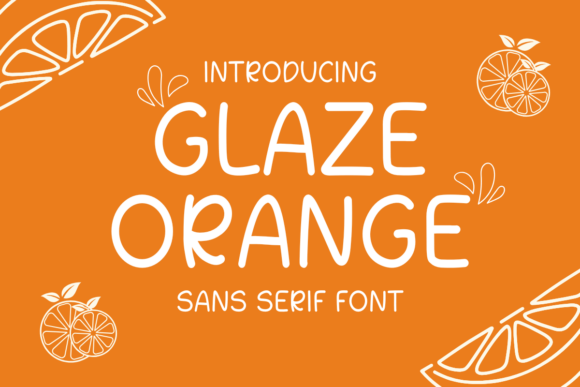
Unlock the Vibrant World of Glaze Orange Font
Have you ever been rummaging through your craft supplies, only to stumble upon a bright orange marker that instantly sparks a wave of creativity? For designers, this feeling is not limited to physical supplies, but can also be triggered by the perfect font. Introducing the Glaze Orange Font, a fun sans serif font designed to bring a pop of color and energy to your projects.
Glaze Orange Font is more than just a font – it’s a versatile tool for creating unique and eye-catching designs. Whether you’re crafting memos, journals, or invitations, this font is sure to add a touch of personality to your work. As a valuable resource for designers, Glaze Orange Font offers endless possibilities for creative expression, making it a must-have in your digital toolkit.
Key Features of Glaze Orange Font
- Font Family: Glaze Orange is a unique, hand-drawn font family that includes a range of styles and weights.
- Unique Characteristics: Glaze Orange features a distinctive, hand-drawn aesthetic with subtle texture and imperfections, giving it a warm and organic feel.
Glaze Orange Font Review
Overall, I think Glaze Orange is a unique and eye-catching font. Here are some of its strengths: ✨
- Playful and vibrant aesthetic that’s perfect for creative projects
- Extensive character set, including a wide range of punctuation and special characters
- Supports multiple weights and styles, allowing for a lot of customization
- Works well for headings and titles, adding a pop of color and energy to your design
- Some characters may not render correctly in certain font sizes or weights
- Lack of support for certain languages, which may limit its use in international projects
- May not be suitable for formal or professional projects, due to its playful and informal vibe
Overall, I think Glaze Orange is a great choice for designers looking to add some personality and whimsy to their projects. While it may not be suitable for every project, it’s a versatile and fun font that’s sure to turn heads. Just be aware of its limitations and use it wisely!
Tips for Getting the Most Out of the Glaze Orange Font
Use the Glaze Orange Font in combination with other fonts to create a visually appealing typographic hierarchy.
The Glaze Orange Font is ideal for creative projects, such as branding, packaging, and advertising materials.
Use the Glaze Orange Font to add a pop of color and energy to your designs.
The Glaze Orange Font is also suitable for digital projects, such as social media graphics and website headers.